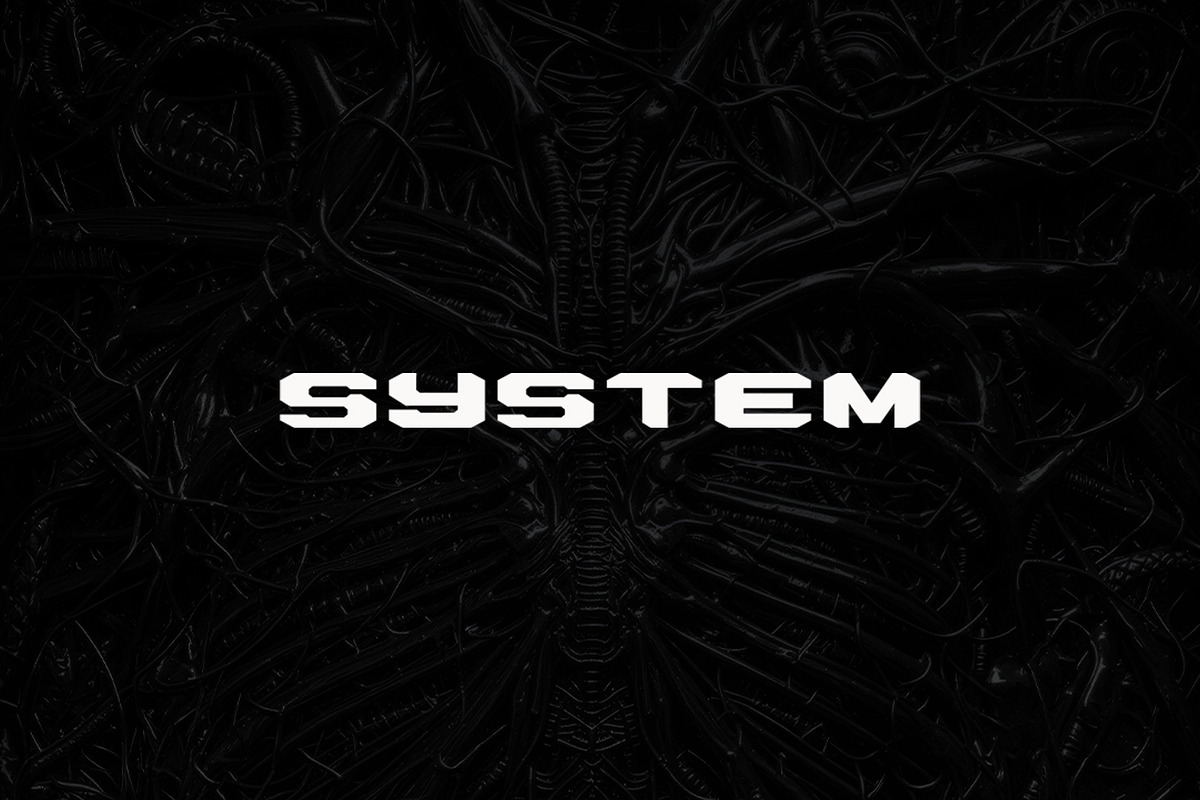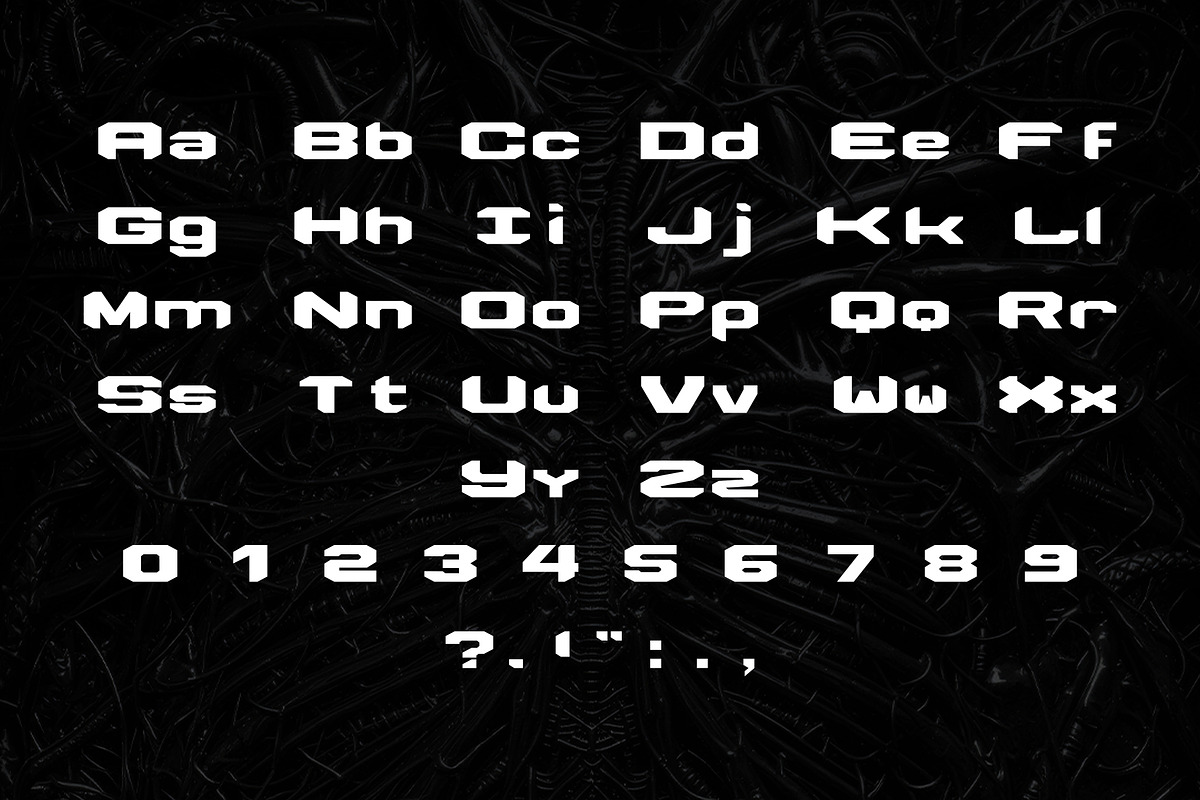
SYSTEM Font
This is a geometric display sans serif with a strong industrial and tech-inspired character. Its design is built around sharp cuts, rigid shapes, and compact proportions, giving the typeface a bold and controlled presence.
The font performs best at large sizes, where its structure and details fully reveal themselves.